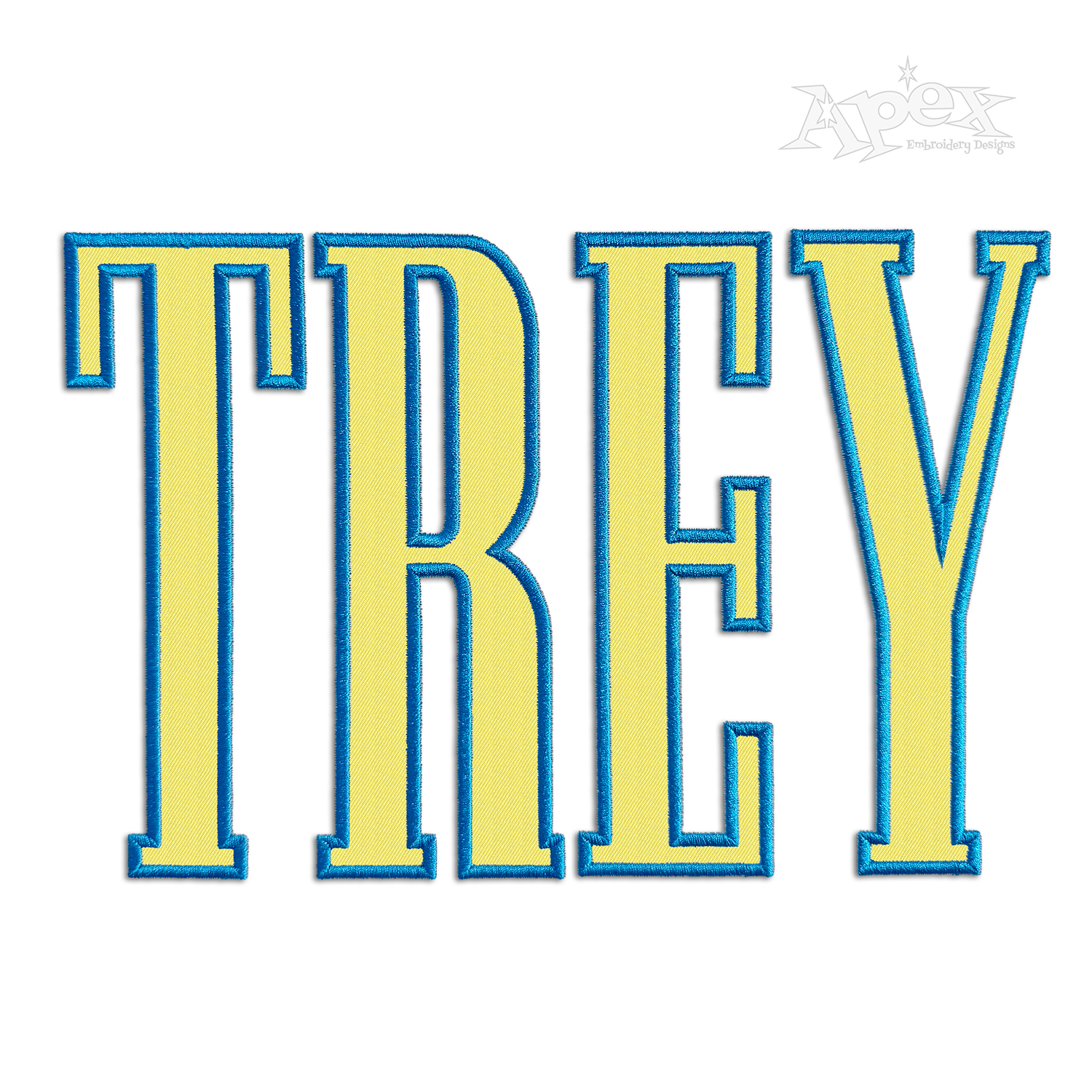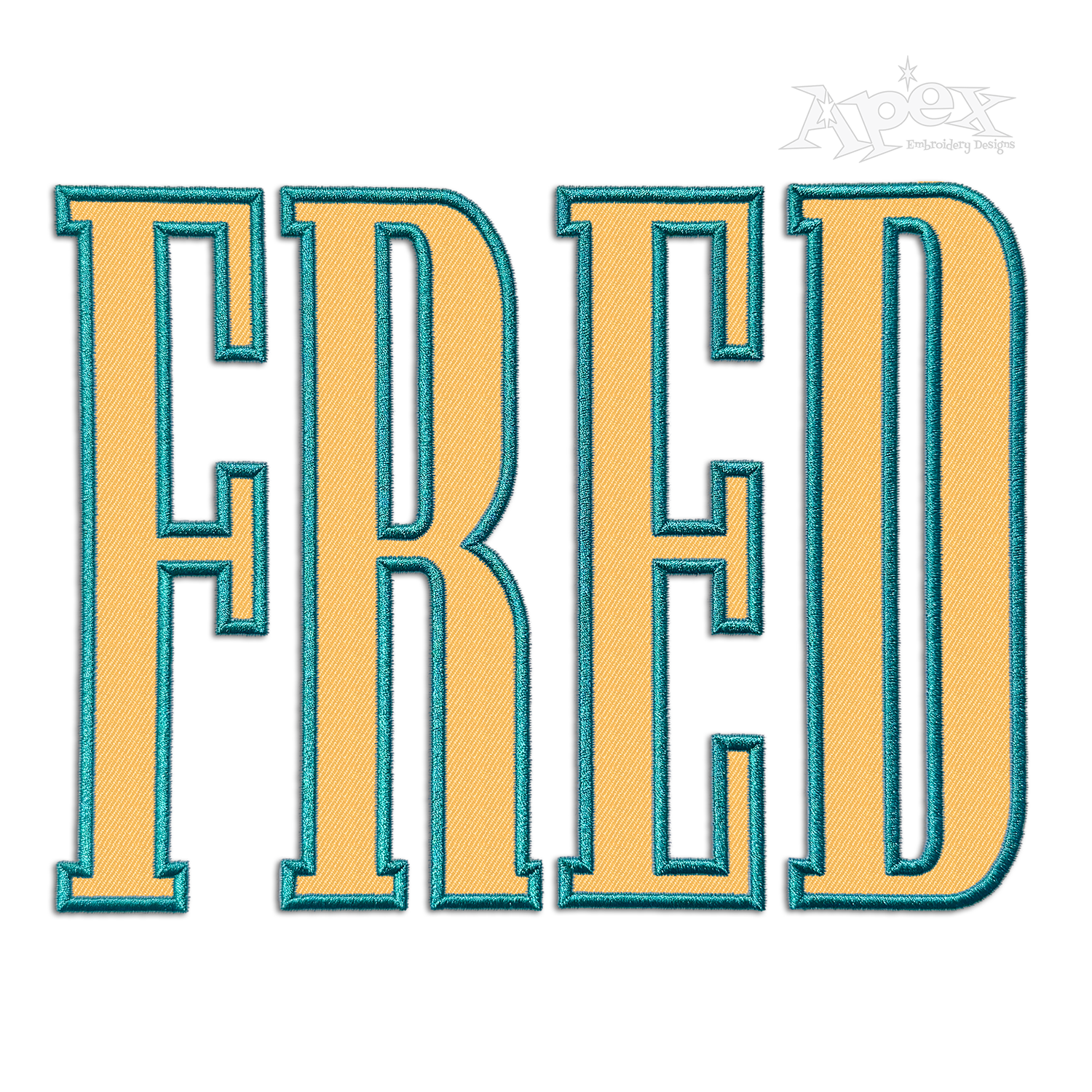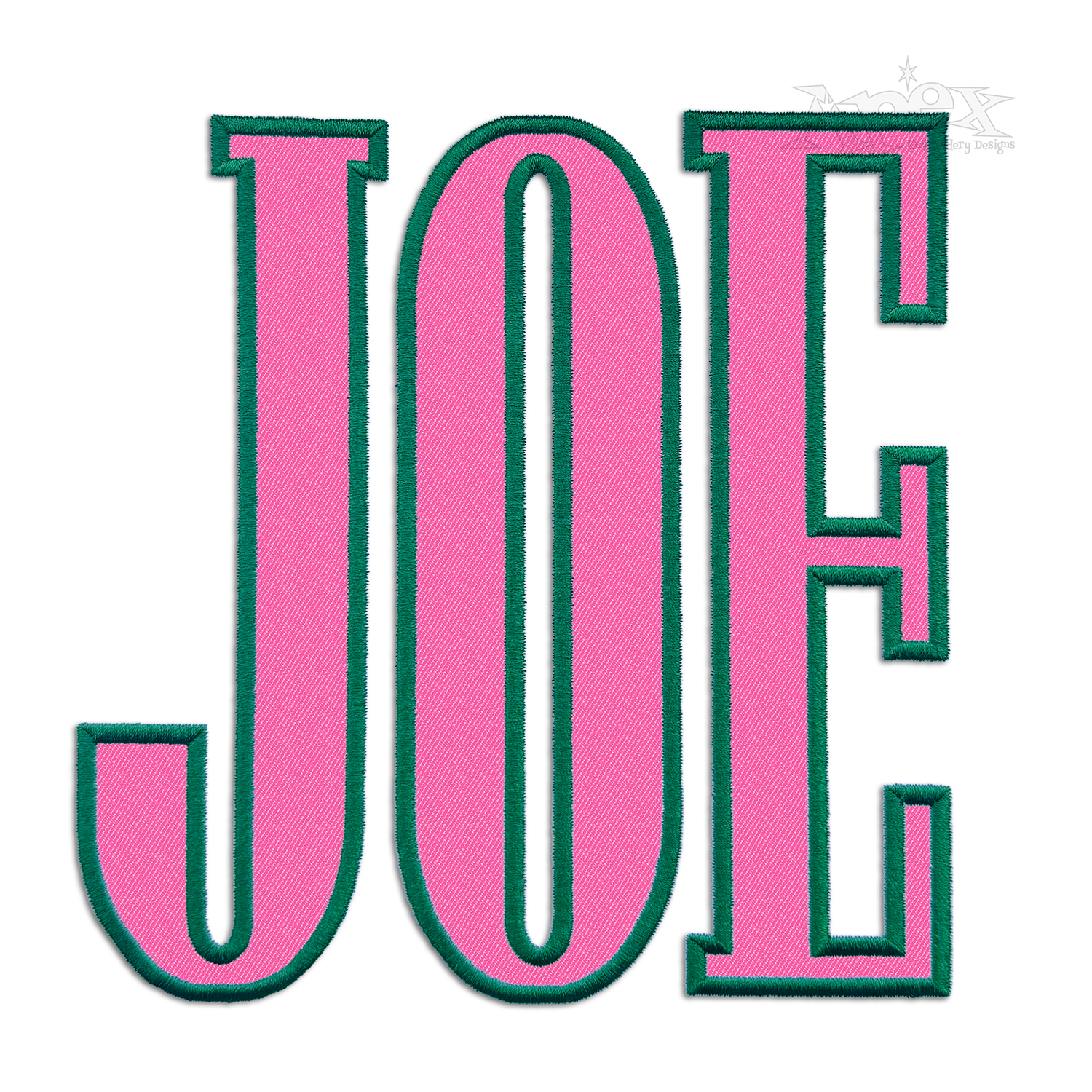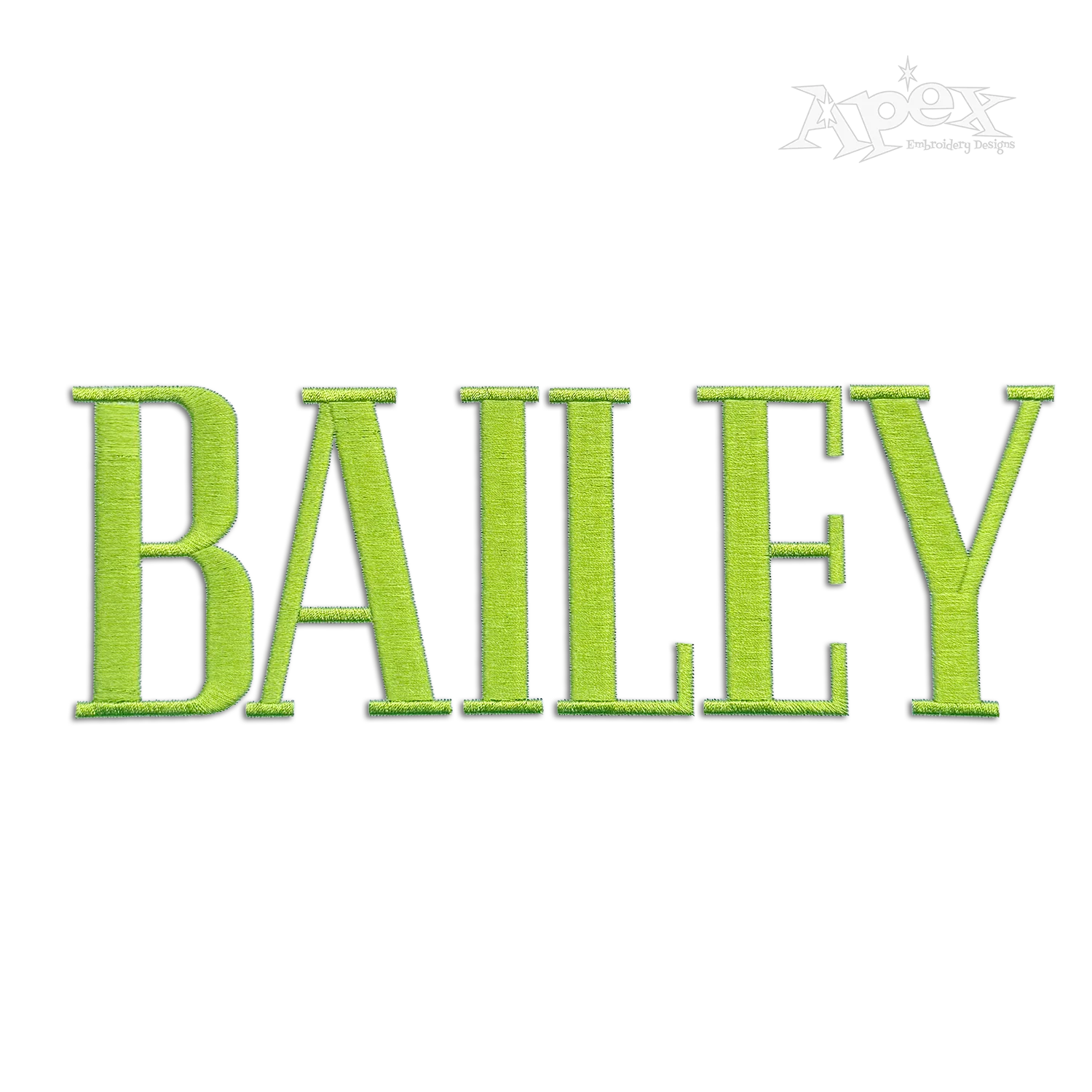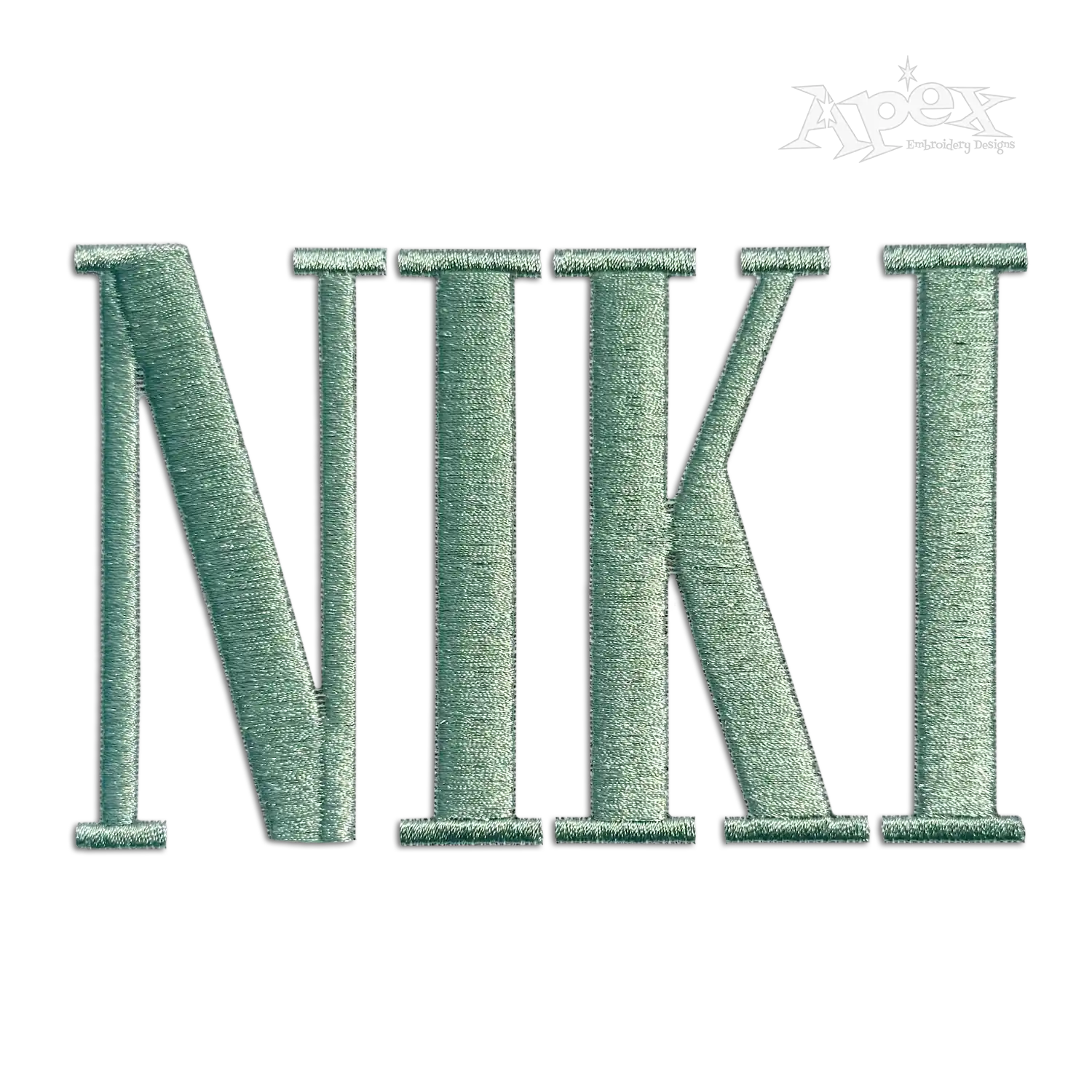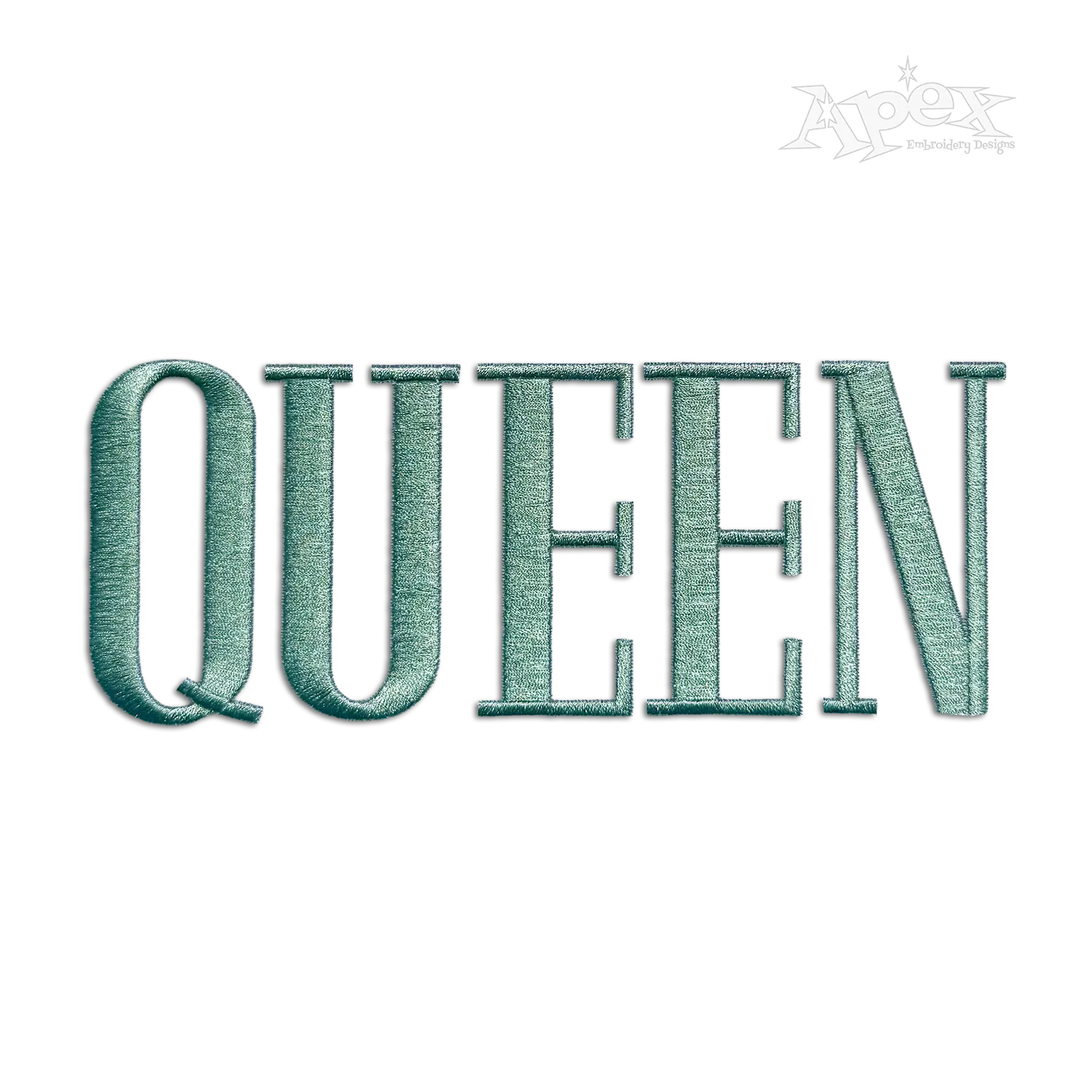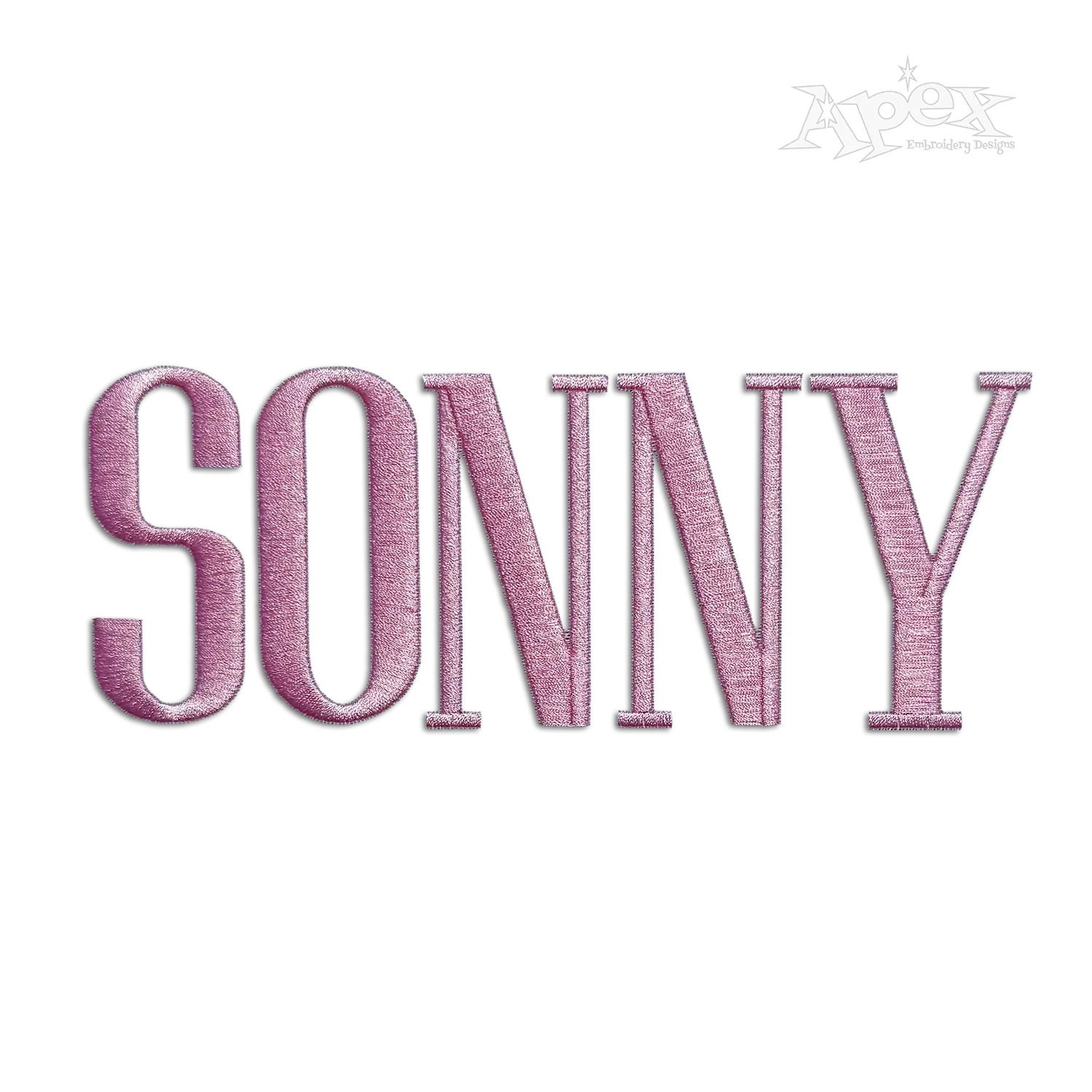
Pottery Barn Embroidery Font
Create tall block chic style personalized gifts and home d?cor with Pottery Barn Font. Clean straight slim monogram embroidery font. Tayor Swift used this style for her wedding day a classic serif block stylish set is perfect for customizing hats, linens, towels, baby gifts, tote bags, and more.